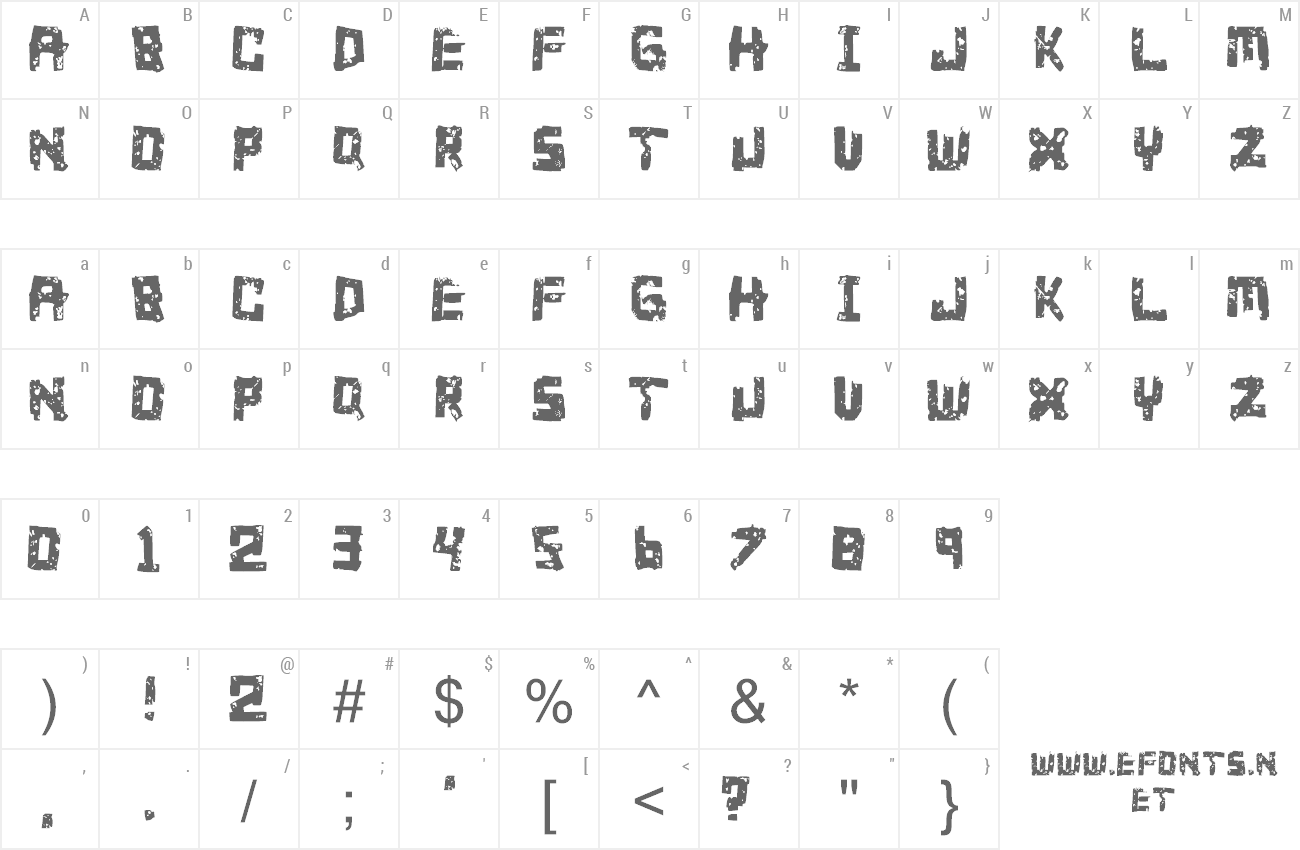
| Font name: | Green Day 21 Glyphs |
| Author: | Redacted |
| Note by Redacted | |
| I claim NONE of this! I couldn't find the font used in the album title of 21st Century Breakdown so I made it myself. I used image samples from the album cover as reference and FontForge to make the actual font. Have fun! |